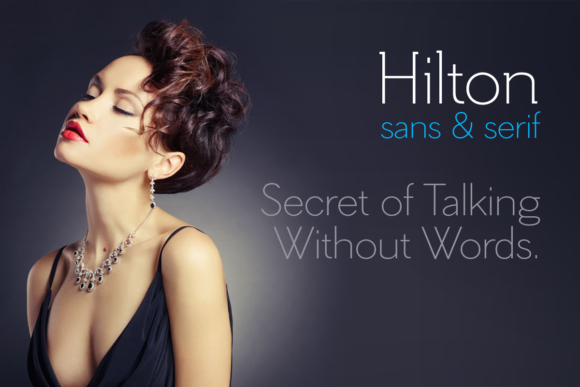
Introduction to Hilton Sans Font
The Hilton Sans Font is more than just a beautiful font; it’s a high-quality design resource that can elevate any creative project. Published by Juraj Chrastina, this sans serif font is a perfect blend of elegance and subtlety, making it an ideal choice for designers looking to add a touch of sophistication to their work. With its transparent background and free download option, it’s a valuable asset for designers who want to create visually stunning designs without breaking the bank.
Key Features of Hilton Sans Font
- High-quality sans-serif font designed for various creative projects, including digital and print media.
- Features a transparent background, allowing for seamless integration with any design or background.
- Designed with a clean and modern aesthetic, making it perfect for a wide range of creative projects.
- Available in a single weight, but suitable for use in body text, headings, and titles due to its high legibility.
Honest Review: Hilton Sans Font
I recently had the chance to work with the Hilton Sans Font in a creative project, and I was pleasantly surprised by its high quality. The font is a versatile sans-serif design that works well in a variety of contexts, from body text to headlines. ✨ One of the standout features of Hilton Sans is its clean and modern aesthetic, which makes it a great choice for any design project that needs a touch of sophistication.
- Clean and modern aesthetic
- High quality design
- May not be suitable for very small text sizes
- Limited language support
Overall, I’m impressed with the Hilton Sans Font. While it may have some limitations, its high quality and versatility make it a valuable resource for designers. I’d definitely recommend it for any creative project that needs a clean and modern font.
Use the Hilton Sans Font in combination with other high-quality fonts to create a unique and creative project. Experiment with different font sizes and styles to add visual interest to your design. Use the font in a transparent background to create a clean and modern look.
The Hilton Sans Font is ideal for use in logos, branding materials, and marketing materials. It’s also a great font for use in social media graphics, presentations, and other design projects where a clean and modern look is desired.